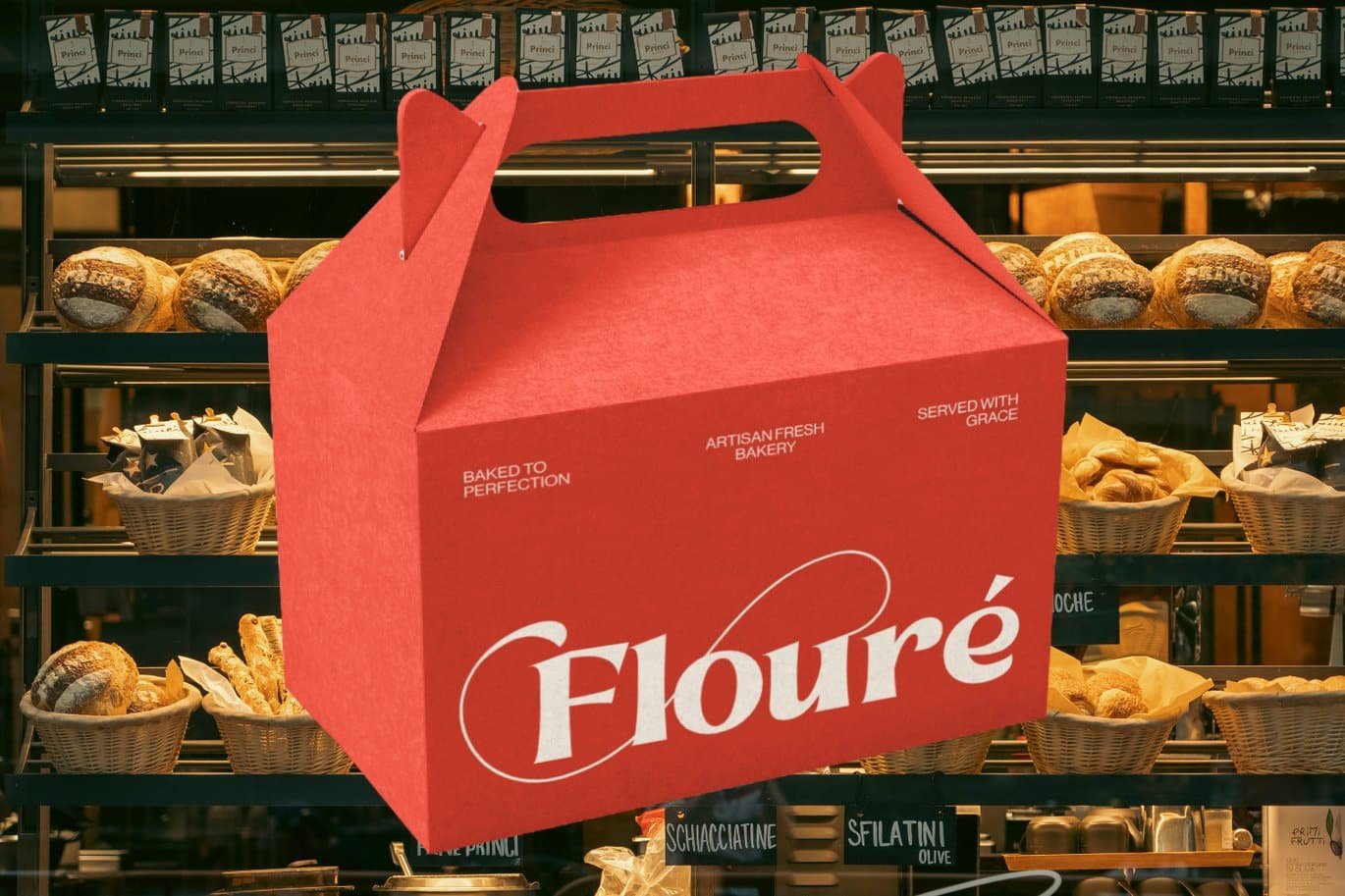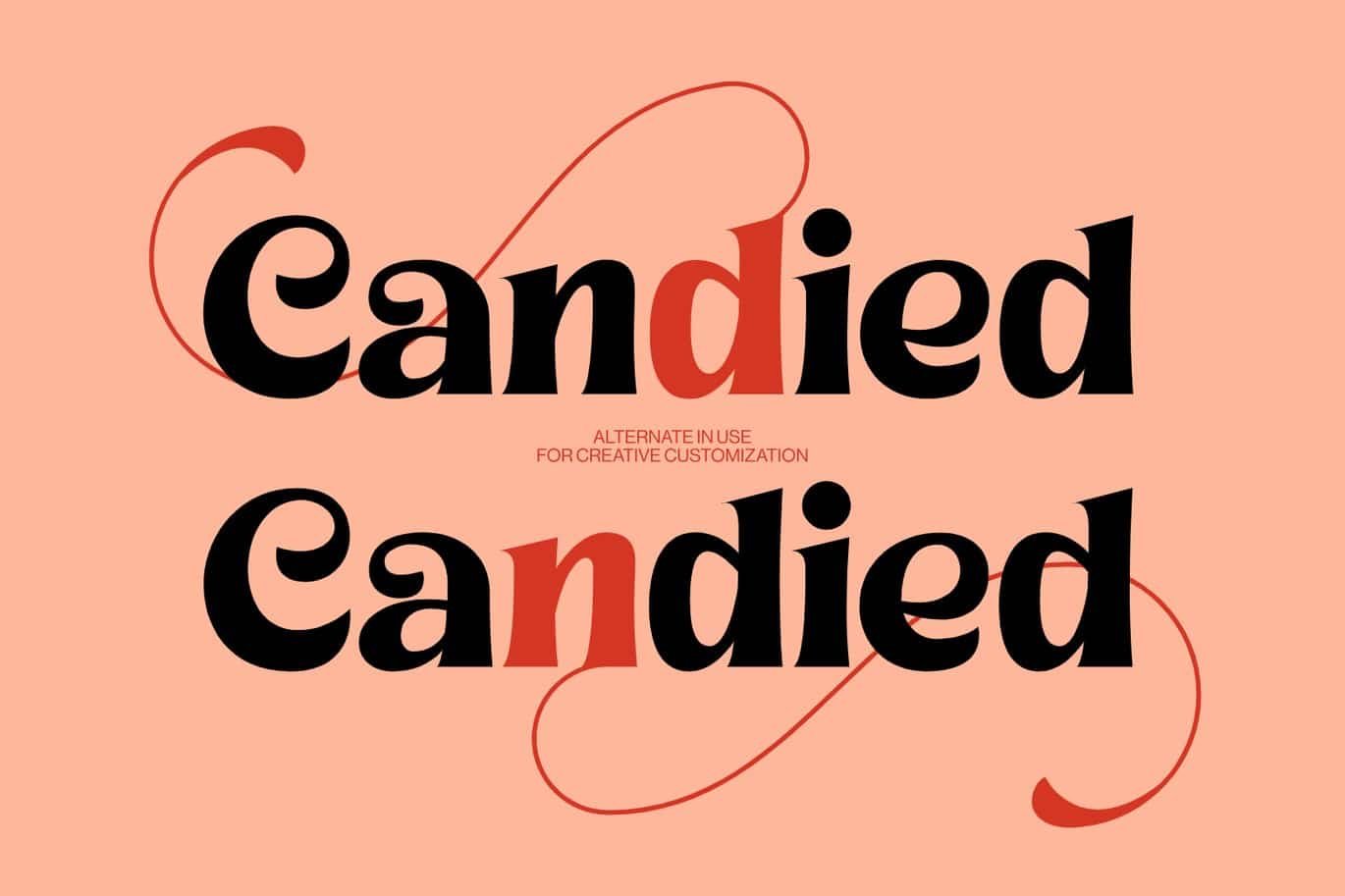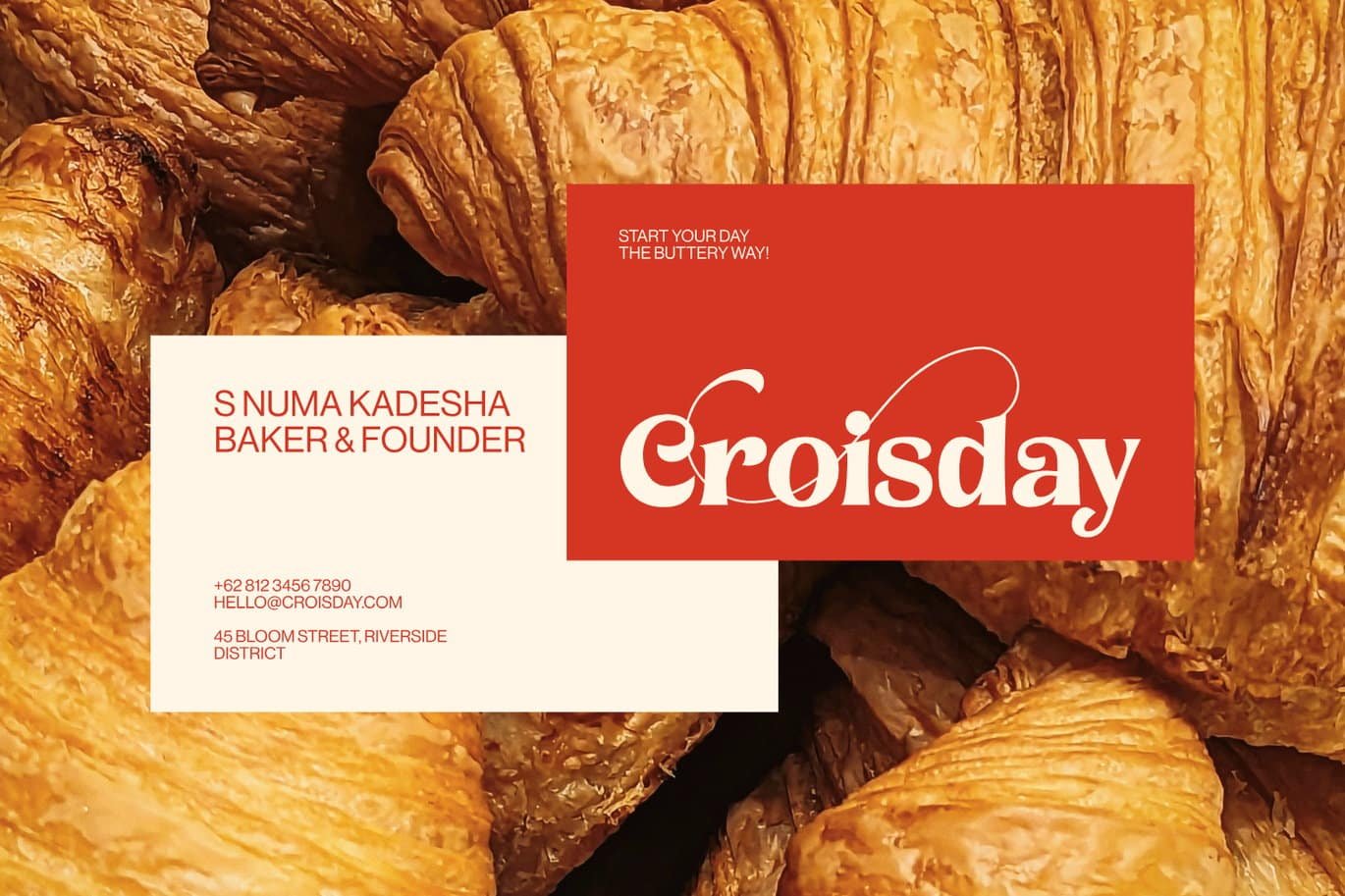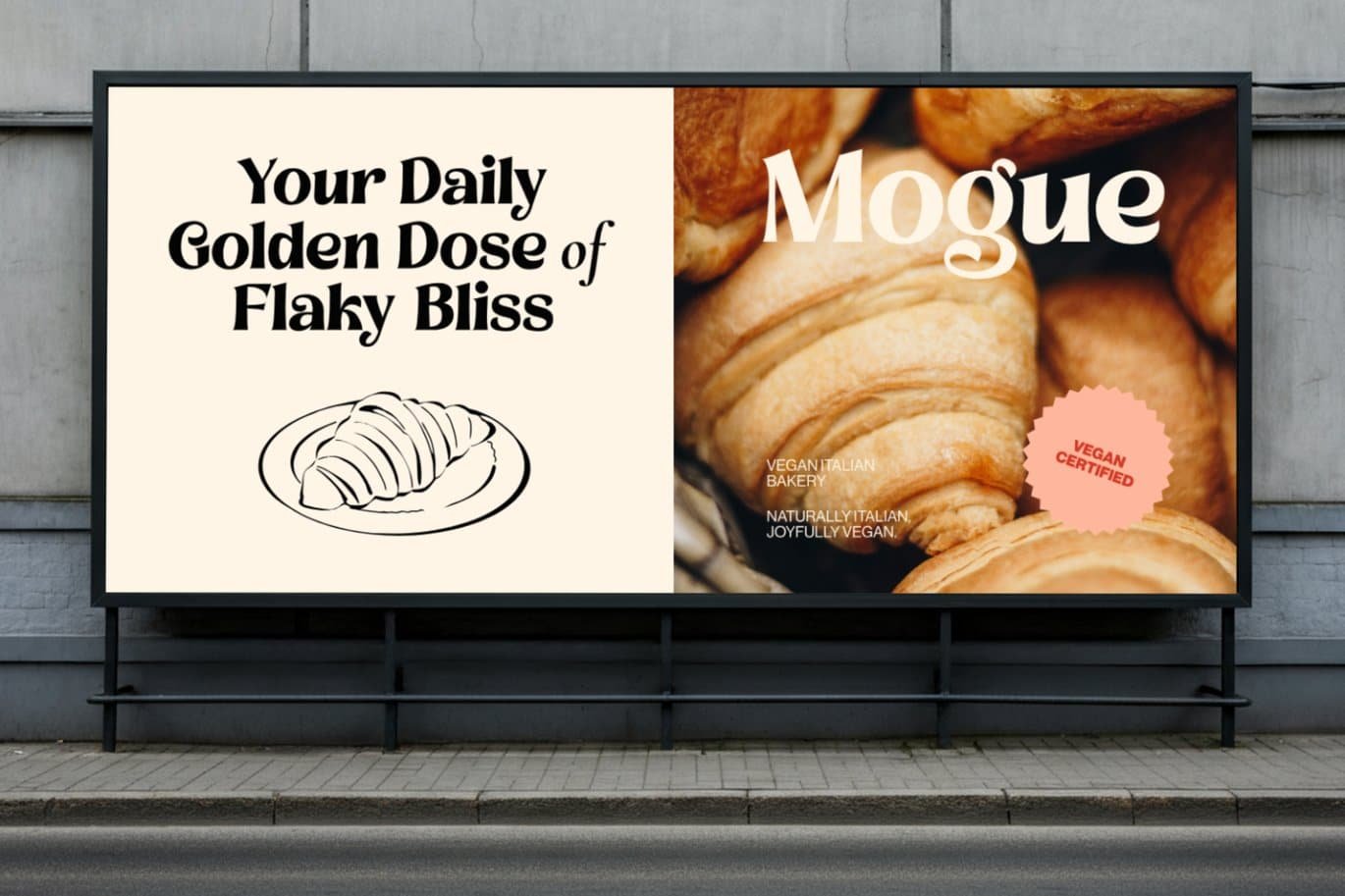
Savala Modern Luxury Font
Meet Savala Modern Luxury Font, a refined typeface crafted to elevate high-end experiences. With its sophisticated style and elegant detailing, Savala is especially recommended for luxury restaurants, fine dining menus, and culinary branding. Beyond hospitality, its versatile design also adapts beautifully to fashion, lifestyle, and exclusive event materials.
Inspiration Behind Savala
The vision for Savala Modern Luxury Font was to create a typeface that embodies the atmosphere of upscale dining and luxury spaces. Inspired by contemporary minimalism and timeless refinement, each letterform carries the essence of exclusivity. This makes it perfect for brands that want to leave an unforgettable impression, whether in a Michelin-starred menu or a couture fashion campaign.
Key Features of Savala
- Elegant Design: Tailored for upscale restaurants, menus, and luxury hospitality branding.
- Versatile Appeal: Works seamlessly for high-end fashion, lifestyle brands, and event design.
- High Quality: Every detail exudes refinement, making your typography stand out.
- Professional Finish: Clear, timeless, and designed for upscale brand storytelling.
- Fine Dining and Restaurants: Build prestige with Savala Modern Luxury Font on menus, signage, and branding.
- Hospitality and Luxury Spaces: From boutique hotels to wine labels, Savala adds elegance.
- Fashion and Lifestyle: Elevate magazines, apparel branding, and product packaging.
- Exclusive Events: Design stunning invitations for weddings, galas, and private gatherings.
With Savala Modern Luxury Font, you’ll achieve a balance of modern sophistication and timeless luxury. Whether you’re branding a five-star restaurant, creating a couture label, or designing high quality event materials, Savala delivers elegance and versatility that speaks directly to luxury audiences.